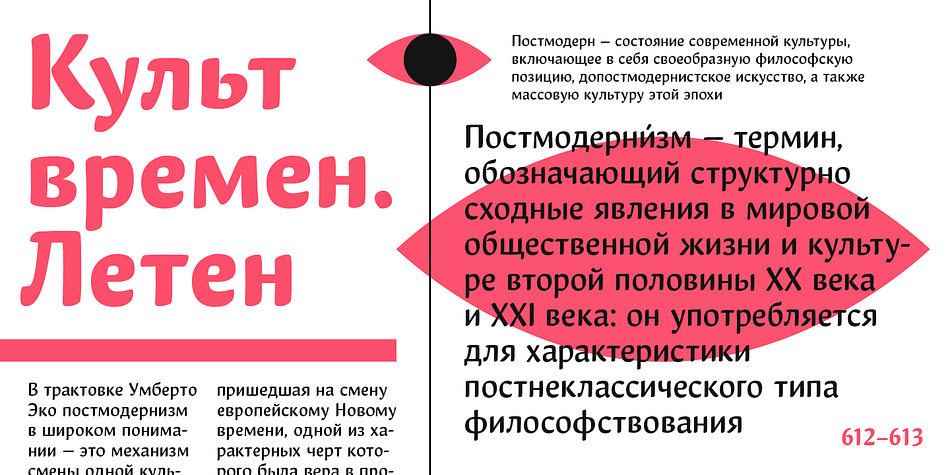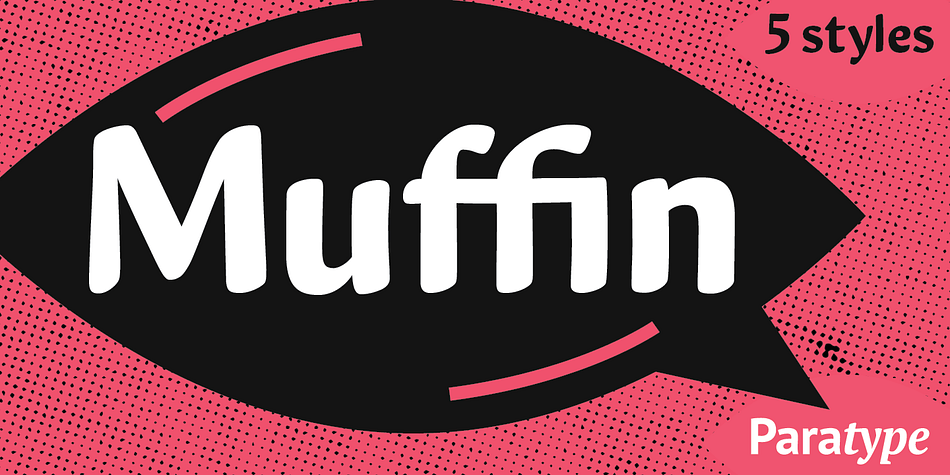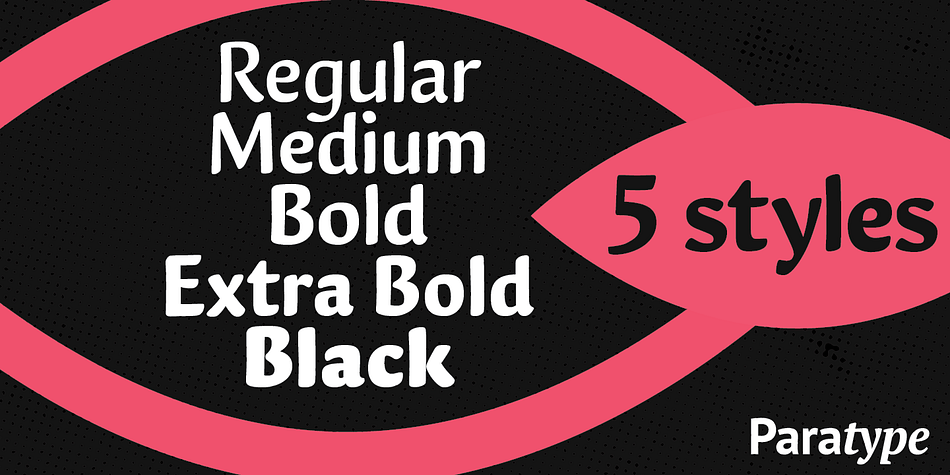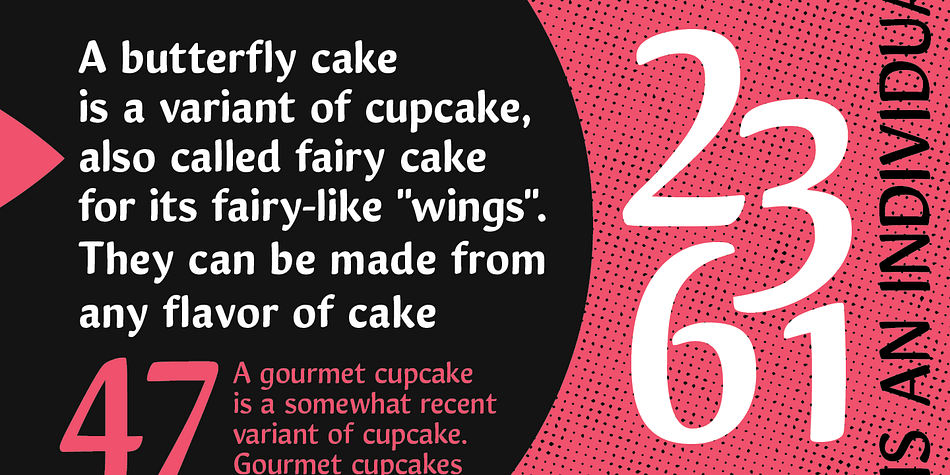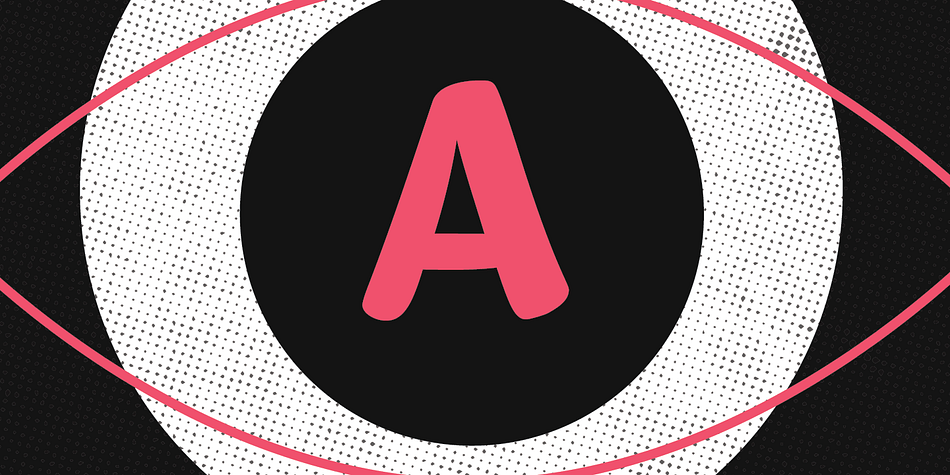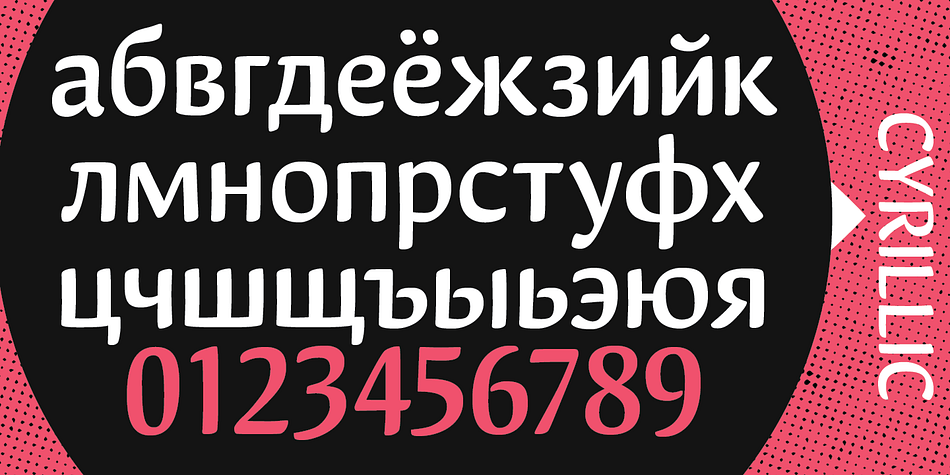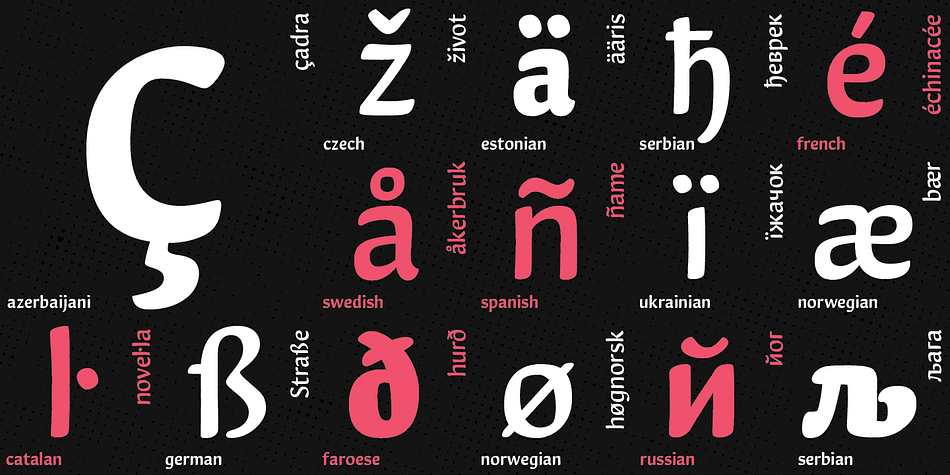
Designed by Natalia Vasilyeva, Muffin is a sans serif font family. This typeface has five styles and was published by ParaType.
Muffin is a soft and rounded humanistic low-contrast sans serif based on broad nib writing. It comes in five weights ranging from Regular to Black.
The friendly character of the font becomes even more pronounced in the darkest styles. Muffin is well suited for food packaging, menus, children’s products, while Regular may be easily used for long runs of text.
The font was designed by Natalia Vasilyeva and released by Paratype in 2017.
Designer | Natalia Vasilyeva |